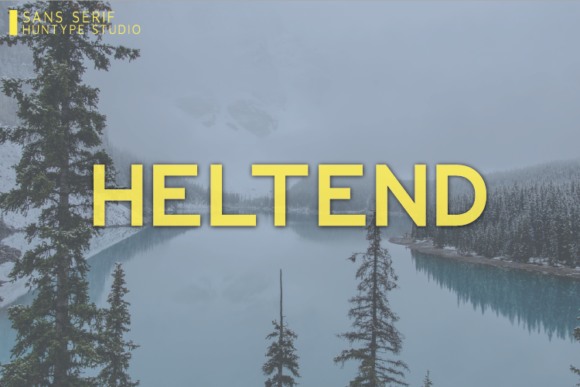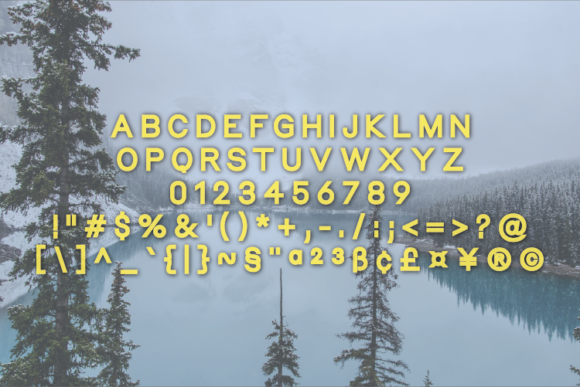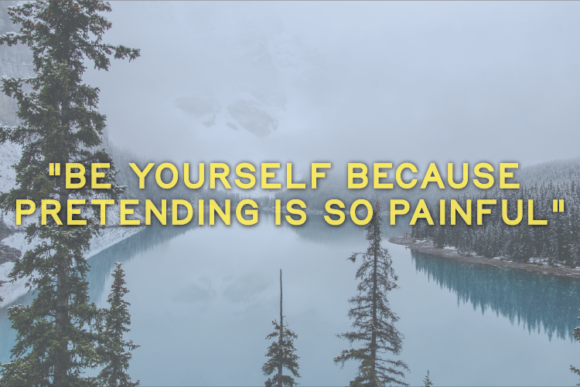
Discover the Perfect Balance of Simplicity and Impact
As designers, we’ve all been there – staring at a blank canvas, waiting for the perfect font to come along and bring our vision to life. The search is over, my friends! Meet Heltend Font, a stunning sans serif font that’s as versatile as it is beautiful.
This simple yet thick-lettered font is a game-changer for logos, branding, and web headings. Its clean design makes it the perfect addition to any project, adding a touch of sophistication and modernity to your work. Whether you’re a seasoned pro or just starting out, Heltend Font is a valuable asset that’s sure to elevate your designs to the next level.
With Heltend Font, you can trust that your message will be conveyed with confidence and style. So why settle for anything less? Add this incredible font to your toolkit and watch your projects soar to new heights.
Heltend Font Key Features
- Font Family: Heltend is a sans-serif font family.
- Character Set: Heltend Font supports a wide range of languages, including Latin, Cyrillic, and Greek alphabets.
- Unique Characteristics: Heltend Font features clean lines, geometric shapes, and a modern aesthetic, making it a popular choice for contemporary designs.
Heltend Font Review
First of all, I’d like to say that Heltend Font is quite a unique and quirky design. ✨ The letterforms are rounded and friendly, making it perfect for any project that needs a touch of approachability. The font family is also quite extensive, with multiple weights and styles to choose from.
Some of the things that work well in Heltend Font include:
- Its clean and simple design makes it easy to read, even at small font sizes.
- The font is highly legible, making it perfect for body text.
- It has a modern feel to it, which is perfect for any project that needs a contemporary touch.
However, there are a few limitations to Heltend Font that I’d like to mention:
- ⚠️ The font may not be suitable for projects that require a lot of technical or formal tone, as it can come across as too playful.
- ⚠️ The font’s rounded edges may not be suitable for projects that require sharp, angular lines.
Overall, I’d say that Heltend Font is a great choice for any project that needs a friendly, approachable feel. While it may have some limitations, it’s a solid choice for a wide range of applications.
For best results, use Heltend Font in headings and titles to add a touch of elegance and sophistication to your designs.
For best results, use Heltend Font in combination with bold lines and geometric shapes to create a modern and sleek design.
For best results, use Heltend Font in headings and titles to add a touch of professionalism and sophistication to your presentations and documents.
Heltend Font is ideal for:
– Modern branding and logos
– Editorial and publishing designs
– Corporate and business presentations
– Web design and development